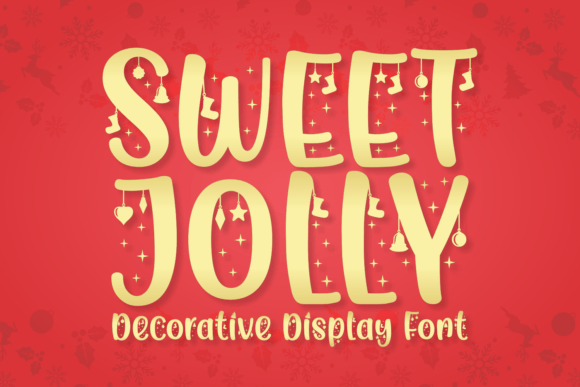
From the enchanting workshops of Creative Fabrica Fonts, meet Sweet Jolly – a font that radiates the magic and warmth of Christmas. As the snow starts to fall and the festive spirit fills the air, Sweet Jolly is here to add an extra layer of cheer to your creative projects.
Picture this: a Christmas card adorned with the heartfelt greetings penned in Sweet Jolly's jolly curves. Your loved ones will feel the warmth of your message leaping off the page, carried by the font's charming personality. Or, envision a social media post announcing your holiday sale, its message popping with the festive flair of Sweet Jolly. This font is your ticket to creating captivating content that leaves a lasting impression.
Whether you're a seasoned designer or a budding enthusiast, Sweet Jolly is your perfect partner for spreading Christmas cheer. Its decorative charm lends itself effortlessly to an array of projects. From Christmas invitations and holiday flyers to festive posters and warm, heartfelt letters to Santa, Sweet Jolly is the font that brings your holiday visions to life.
Prepare to be swept off your feet by Sweet Jolly's versatility. This enchanting font family offers a range of styles, each brimming with its own unique character. Choose from regular, italic, bold, and bold italic – a captivating ensemble that empowers you to weave your Christmas tales with boundless creativity.